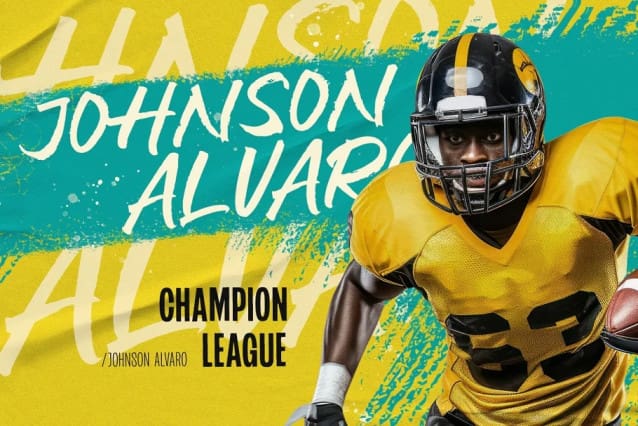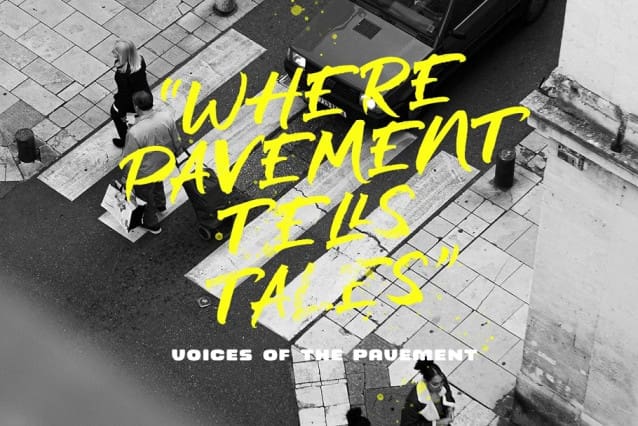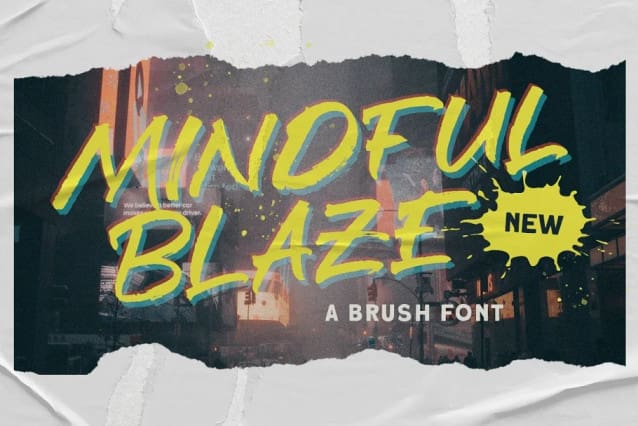
Mindful Blaze Font
Mindful Blaze Font is a freestyle brush font, It’s organic and hand-drawn appearance adds a touch authenticity to your designs, making it a perfect choice for projects that seek to stand out with the stroke and creative statement.
This font perfectly made to be applied especially in logo, and the other various formal forms such as invitations, labels, logos, magazines, books, greeting / wedding cards, packaging, fashion, make up, stationery, novels, labels or any type of advertising purpose.